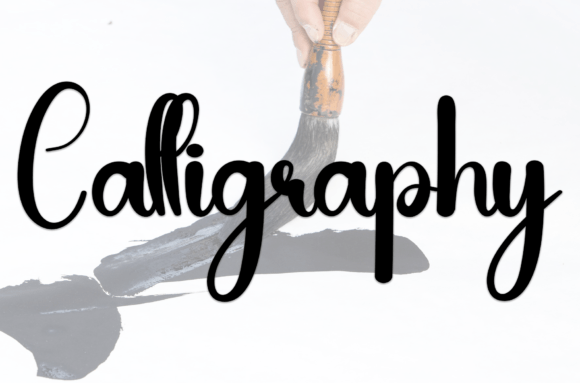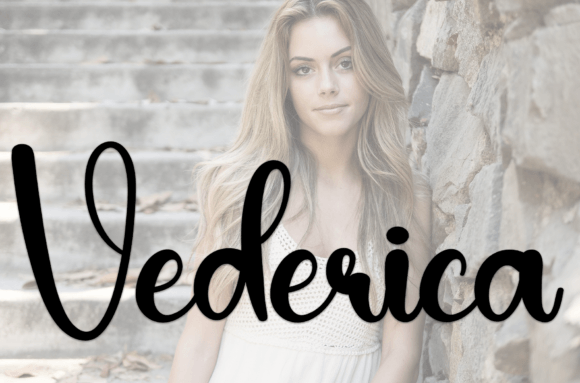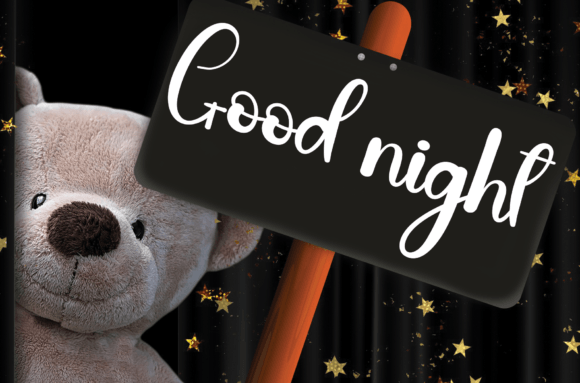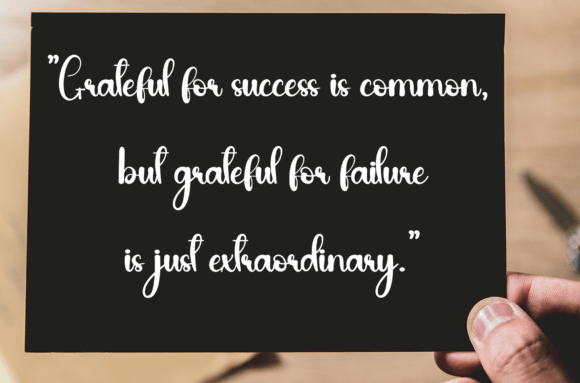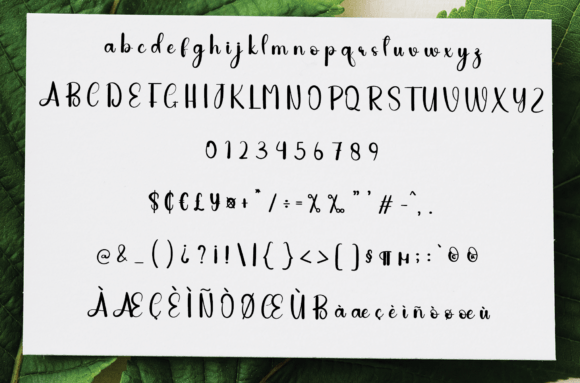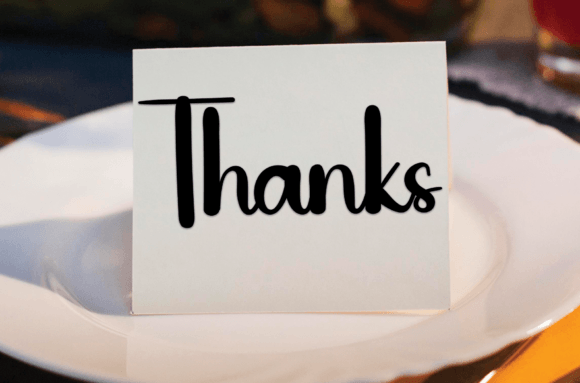
Bakery Font: The Sweet and Friendly Handwritten Font for Your Creative Projects
Are you a designer or crafter looking for a font that can add a touch of warmth and personality to your creative projects? Look no further than the Bakery font! This sweet and friendly handwritten font is perfect for writing wedding invitations, cards, or any other design that might need a fun touch. In this article, we’ll take a closer look at the Bakery font, its features, and how you can use it to elevate your designs.
What is Bakery Font?
Bakery font is a type of handwritten font that is designed to mimic the look and feel of handwritten text. It’s a creative and cute font that’s ideal for adding a personal touch to your designs. The font is characterized by its rounded edges, smooth curves, and friendly demeanor. It’s the perfect choice for designers and crafters who want to add a touch of whimsy and playfulness to their work.
Key Features of Bakery Font
So, what makes Bakery font so special? Here are some of its key features:
- Handwritten look: The Bakery font has a genuine handwritten look that’s perfect for adding a personal touch to your designs.
- Rounded edges: The font features rounded edges that give it a soft and friendly feel.
- Smooth curves: The curves in the Bakery font are smooth and flowing, making it perfect for creating elegant and sophisticated designs.
- Cute and playful: The Bakery font is designed to be cute and playful, making it perfect for designs that require a fun touch.
Uses of Bakery Font
So, how can you use the Bakery font in your designs? Here are some ideas:
- Wedding invitations: The Bakery font is perfect for writing wedding invitations that are elegant, sophisticated, and personal.
- Cards: You can use the Bakery font to create beautiful and heartfelt cards for special occasions like birthdays, anniversaries, and holidays.
- Social media graphics: The Bakery font can add a touch of personality to your social media graphics, making them more engaging and fun.
- Logos: The Bakery font can be used to create logos that are friendly, approachable, and memorable.
Tips for Using Bakery Font
Here are some tips for using the Bakery font in your designs:
- Pair it with other fonts: The Bakery font can be paired with other fonts to create a unique and interesting contrast.
- Experiment with colors: The Bakery font looks great in a variety of colors, so don’t be afraid to experiment and find the perfect color for your design.
- Use it sparingly: While the Bakery font is cute and playful, it can be overwhelming if used too much. Use it sparingly to create a balanced design.
In conclusion, the Bakery font is a sweet and friendly handwritten font that’s perfect for adding a touch of warmth and personality to your creative projects. Its rounded edges, smooth curves, and friendly demeanor make it ideal for designs that require a fun touch. Whether you’re a designer or crafter, the Bakery font is a great choice for creating wedding invitations, cards, social media graphics, logos, and more. So why not give it a try and see how it can elevate your designs?